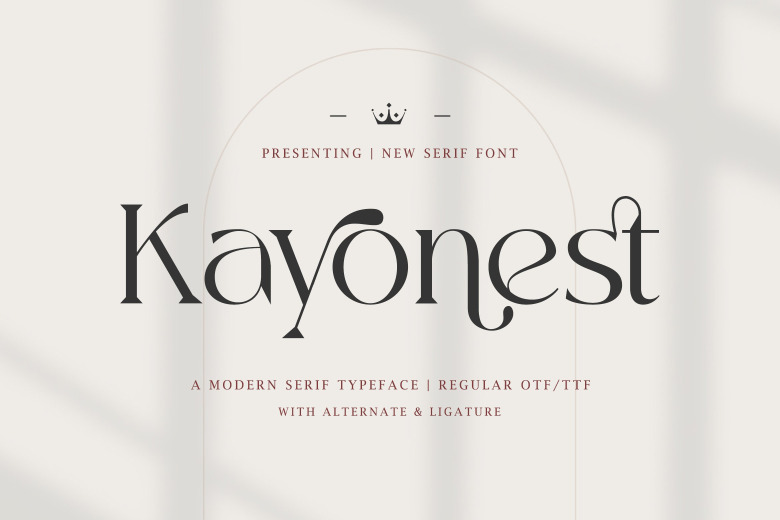
Kayonest Font
Usage guidelines Kayonest is a modern serif font that combines old-fashioned influences with a new vision. It is beautifully crafted and may be paired with an almost unquantifiable collection of applications. You shall wish to use this font if you require anything that looks good and delicate and has much to work on.
Kayonest Serif Font